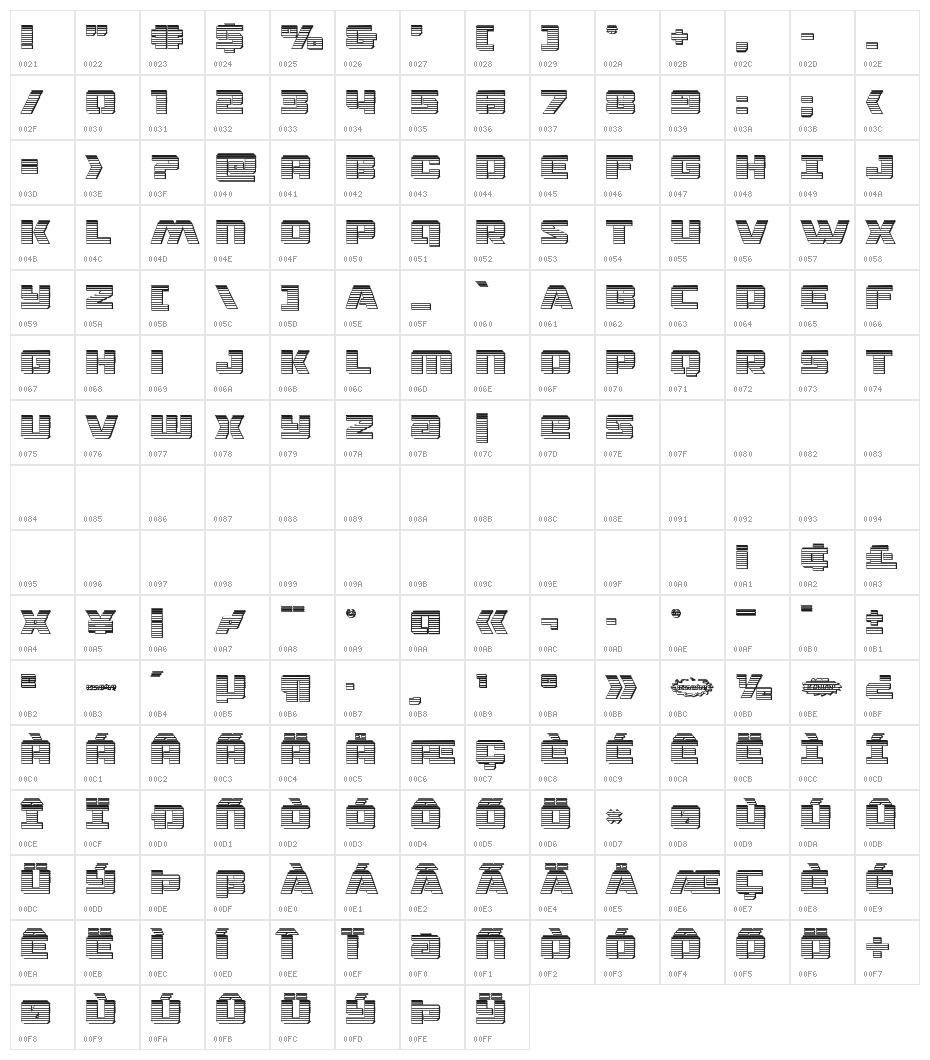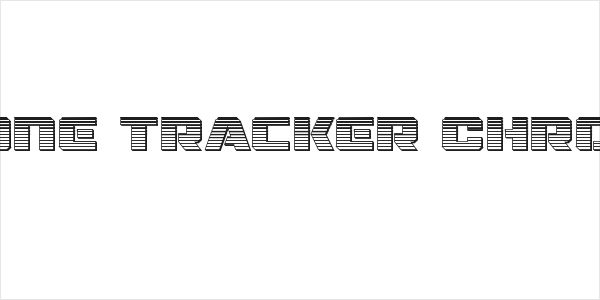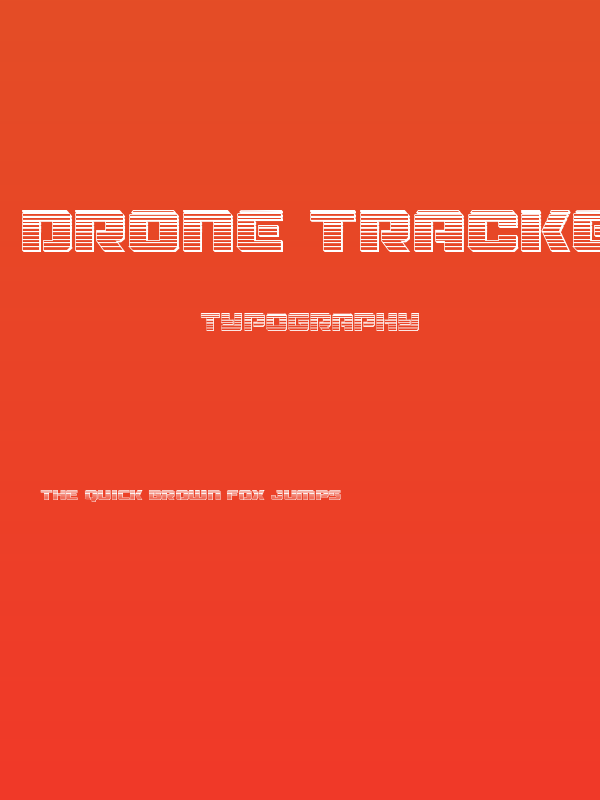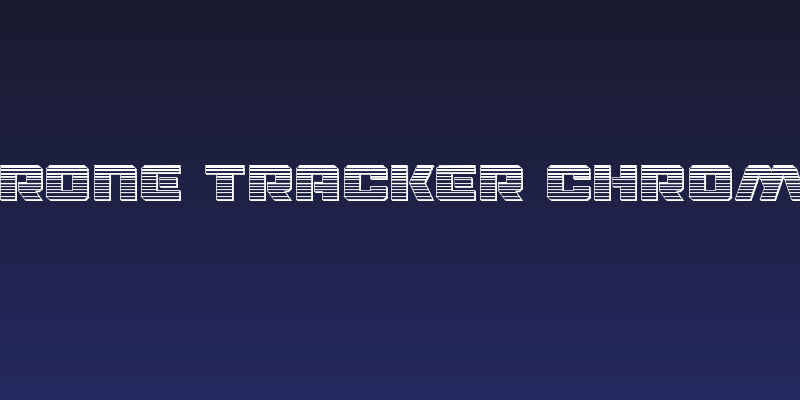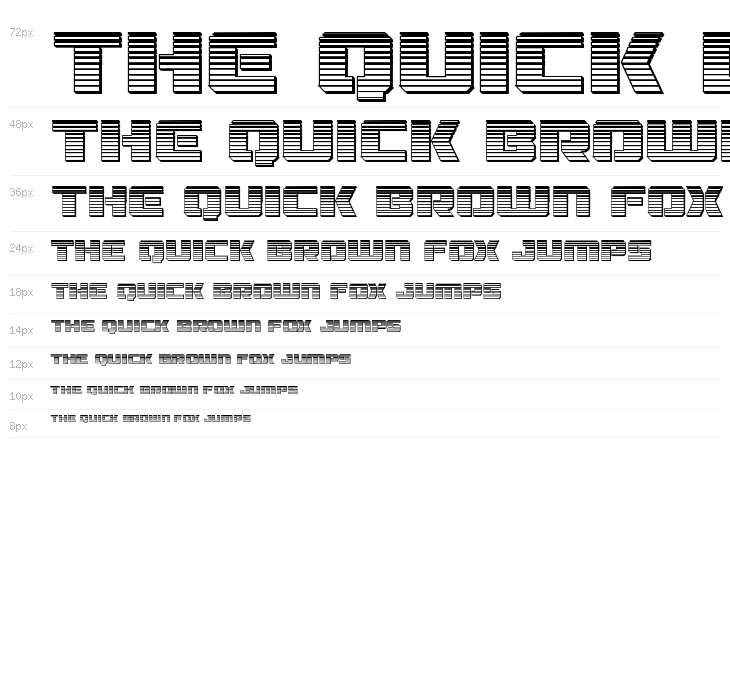
Drone Tracker Chrome Font
Drone Tracker Chrome Description
This font features a bold and futuristic design with a distinct three-dimensional effect. Each character is composed of multiple parallel lines that create a sense of depth and movement. The geometric structure of the letters is consistent, with sharp angles and straight edges, giving it a modern and industrial feel. The uppercase and lowercase letters maintain uniformity in style, while the numerals and special characters are crafted to match the overall aesthetic. This font is visually striking and commands attention, making it suitable for projects that require a strong and dynamic presence.